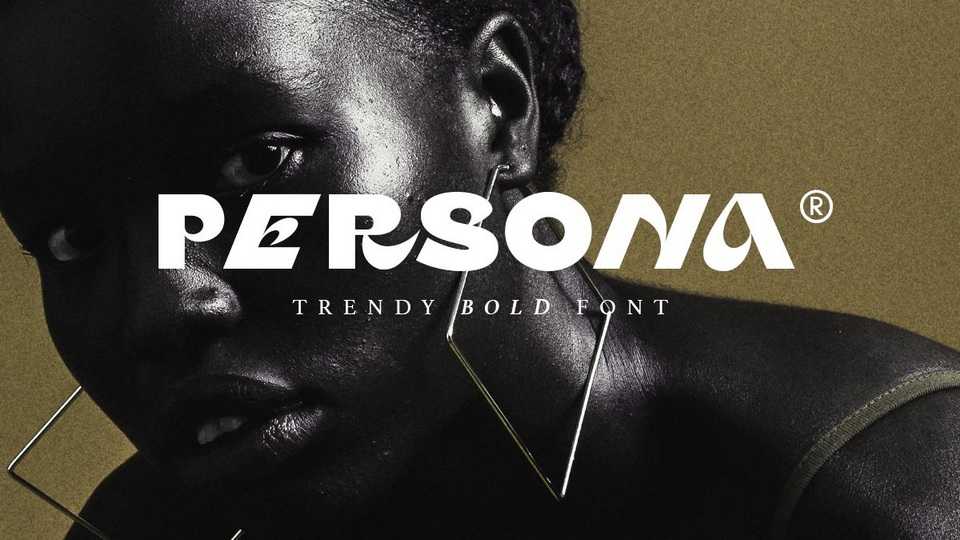
Download Persona font, a modern and trendy display typeface with unique look and strong personality. Persona is ideal choice for magazines, posters, fashion, social media, logo and branding projects.